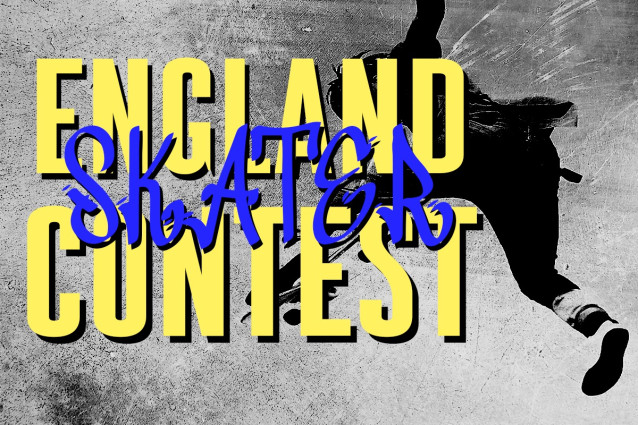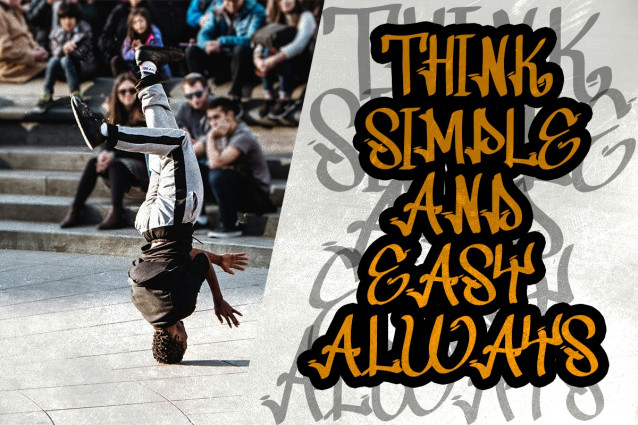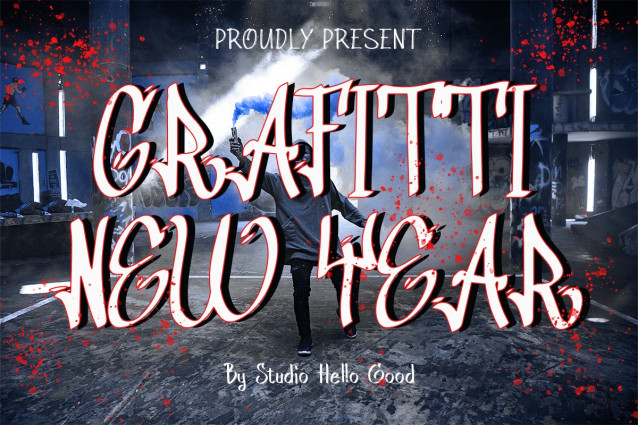
Grafitti New Year Font
Graffiti New Year Font, a vibrant and expressive font that encapsulates the raw energy and urban edge of tag graffiti. As we usher in a new year, this font becomes a visual celebration, blending rebellious street art aesthetics with a festive twist, making it the perfect choice for bold and unconventional New Year-themed designs.
Graffiti New Year’s tag graffiti style is a fusion of rebellious spontaneity and festive flair. Its jagged edges, splatters, and dynamic strokes bring an authentic street vibe to your projects, making it ideal for those looking to make a statement that breaks free from tradition.
Celebrate the arrival of the new year with a burst of creativity, as Graffiti New Year becomes the voice of unconventional self-expression. Whether you’re designing party invitations, event posters, or social media graphics, this font adds an element of excitement and nonconformity to your messages.
Graffiti New Year is not just a font; it’s a visual rebellion against the ordinary. Its edgy, handcrafted style transforms any New Year-related project into a canvas of urban expression. Break free from the conventional and embrace the bold, unapologetic spirit of the streets with Graffiti New Year – where graffiti meets celebration, creating a visual symphony that resonates with the rebellious and festive essence of the new year.